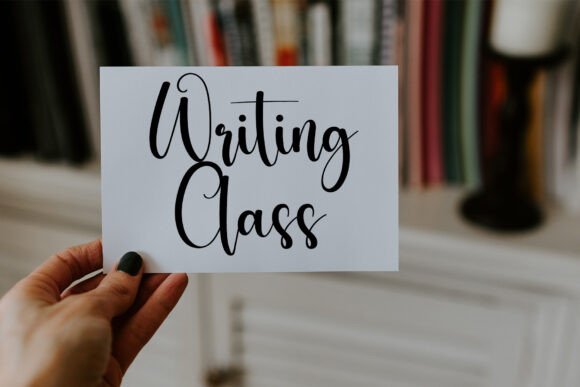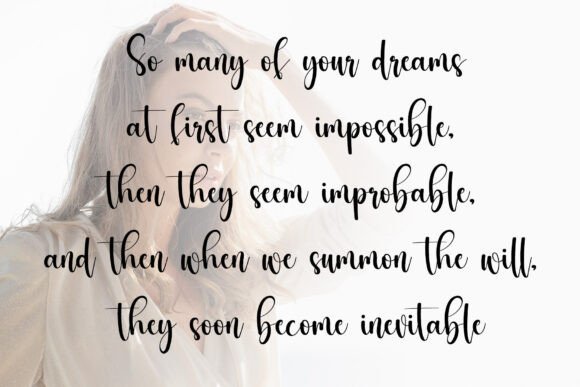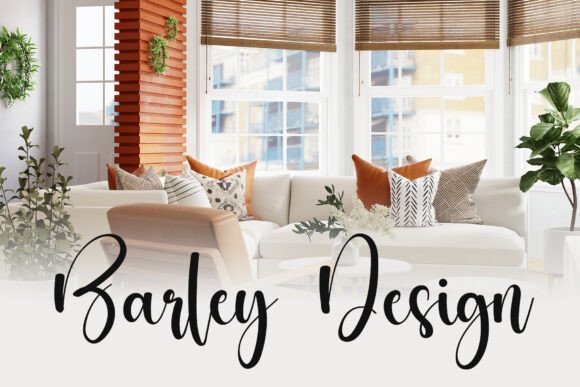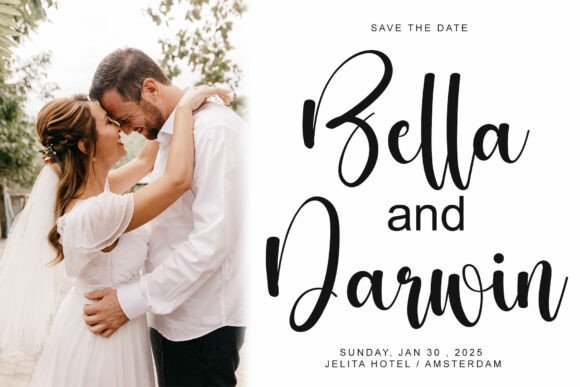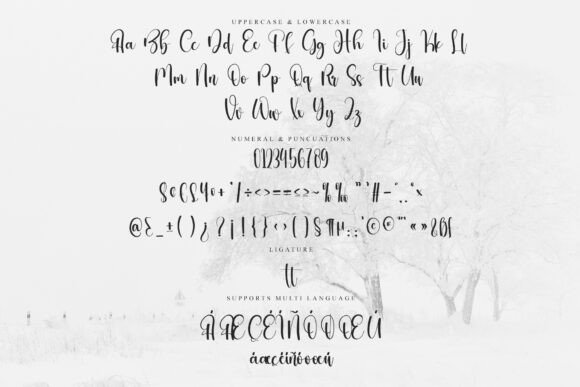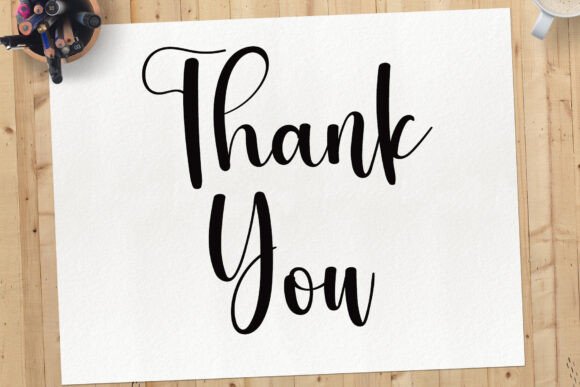
Discover the Magic of Breaking Charming Font
Have you ever been in the middle of a design project, and suddenly, you’re stuck on finding the perfect font? I recall a particularly frustrating experience while working on a holiday-themed gift tag project. My client wanted something that exuded cheer and nostalgia, but my usual go-to fonts just weren’t cutting it. That’s when I stumbled upon the delightful Breaking Charming Font. With its decorative elements and whimsical flair, it adds a touch of enchantment to your designs. Perfect for greeting cards, gift tags, and holiday-themed projects, this font brings a cheerful and nostalgic ambiance to your words.
• ✨ Unique decorative elements that add a touch of whimsy to any design
• ✅ Easy to read, even in smaller sizes
• 💫 Perfect for creating eye-catching titles and headings
• 🎉 Supports OpenType features, glyphs, and stylistic alternates for added versatility
While Breaking Charming Font is a delightful addition to any design project, there are a few things to keep in mind: 🤔
• ⚠️ Some of the decorative elements can be a bit finicky when it comes to kerning
• ⚠️ May not be the best choice for body text or long paragraphs
The Story Behind Breaking Charming Font
Breaking Charming Font was designed with the intention of capturing the magic of traditional, hand-crafted typography. The designer aimed to create a font that would evoke a sense of nostalgia and whimsy, perfect for special occasions and holiday-themed projects. With its unique decorative elements and OpenType features, Breaking Charming Font is sure to add a touch of enchantment to your designs.
Q: What type of projects is Breaking Charming Font best suited for?
A: Breaking Charming Font is perfect for greeting cards, gift tags, holiday-themed projects, and any design that requires a touch of whimsy and nostalgia.
Q: Does Breaking Charming Font support OpenType features?
A: Yes, Breaking Charming Font supports OpenType features, glyphs, and stylistic alternates, allowing you to add extra flair to your designs.
Q: Can I use Breaking Charming Font for body text?
A: While Breaking Charming Font is a beautiful font, it’s not recommended for body text or long paragraphs. It’s best suited for titles, headings, and short bursts of text.